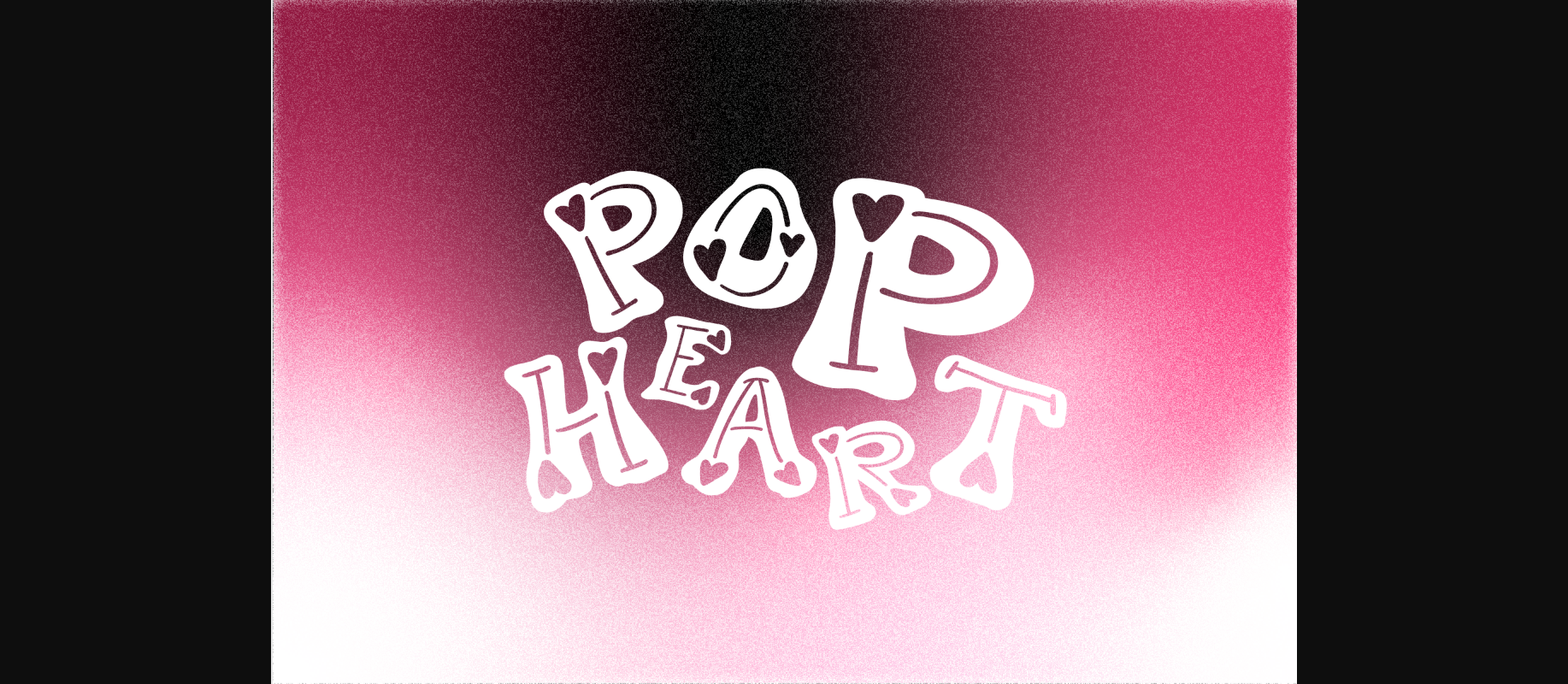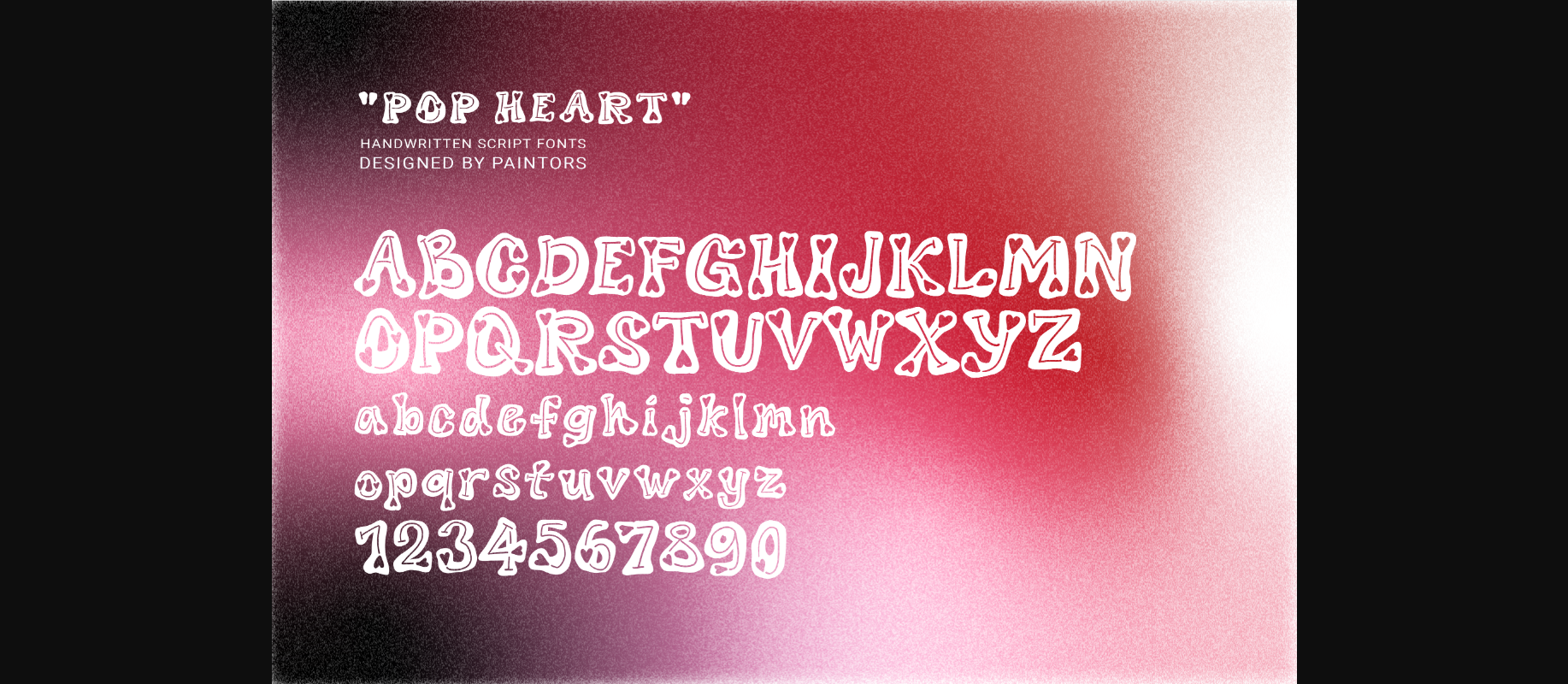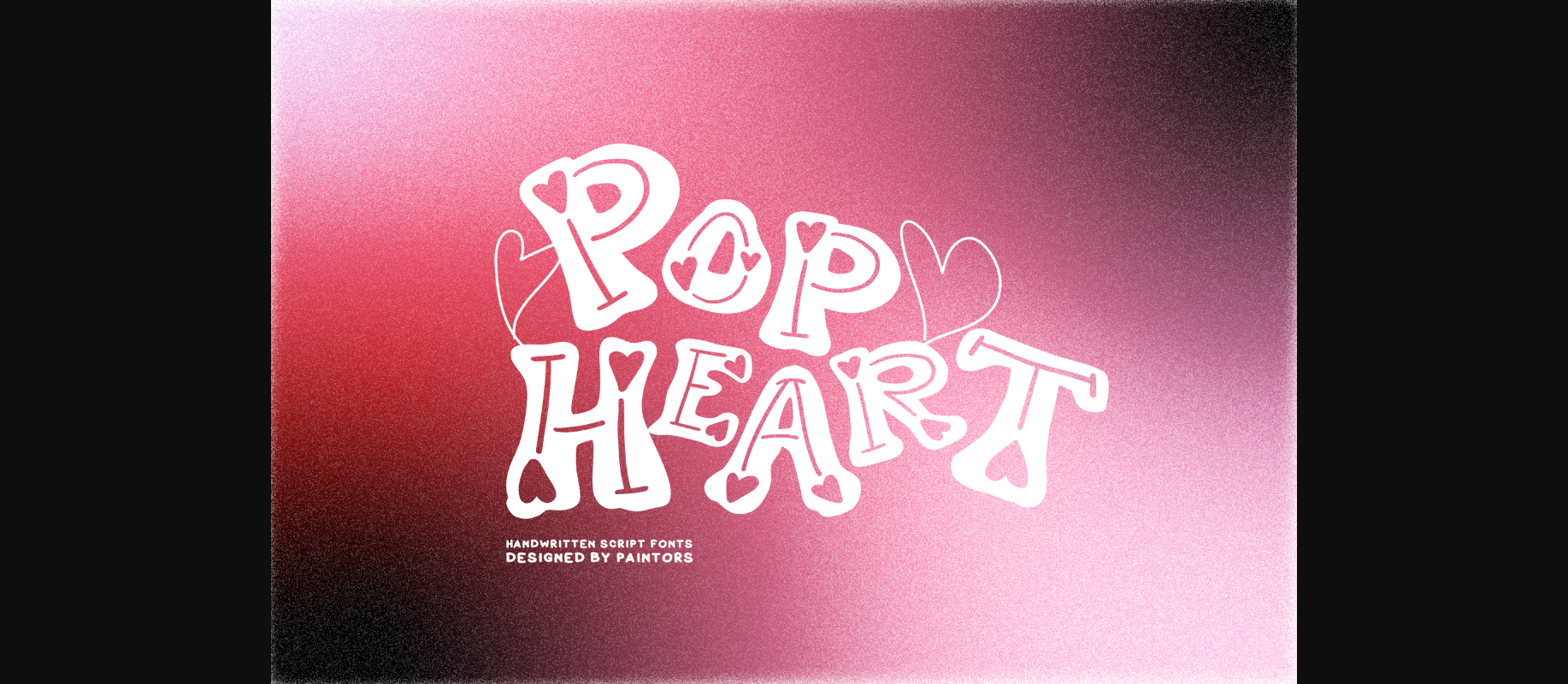
Pop Heart Font
About Pop Heart Font
Experience the whimsy of Pop Heart font, a dynamic and playful bold typeface designed to infuse a captivating dose of charm into your creative design blueprint. Embellished with a delightful heart symbol, this font spices up your projects with an invigorating blend of joy and vibrancy. Perfectly suited for child-oriented ventures, toy-related themes, game graphics, Valentine’s Day cards, or any design demanding a jovial and luminous touch. Pop Heartfont doesn’t just elevate your design space, it draws infectious smiles from your viewers. Elevate your creative outputs with the appealing vibrancy of Pop Heart.